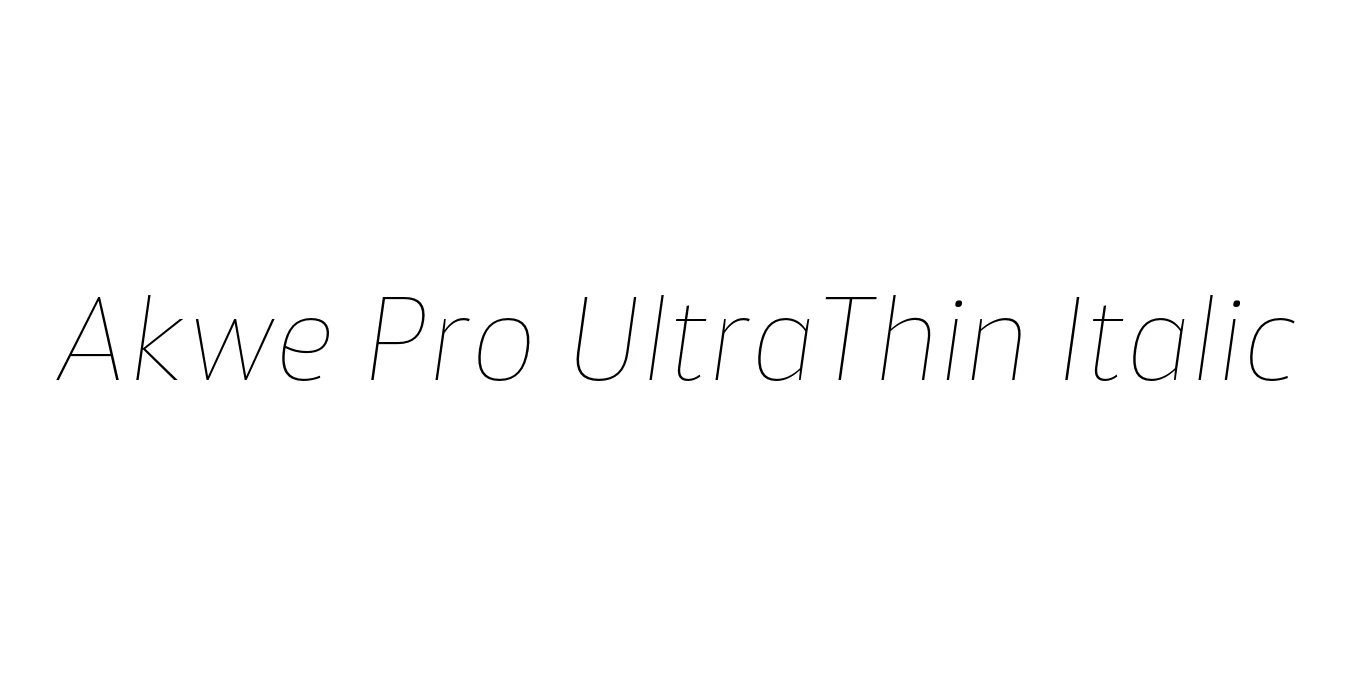
Akwe Pro UltraThin Italic
Designed by Janusz Nowacki
Akwe Pro is a sophisticated and comprehensive sans-serif superfamily designed by Janusz Nowacki. The 'UltraThin Italic' variant represents the lightest extreme of the family, offering a delicate and ethereal aesthetic that pushes the boundaries of stroke thickness. The design is rooted in geometric principles but infused with subtle humanist touches that ensure it retains a sense of warmth despite its clinical precision.
The Akwe Pro UltraThin Italic is particularly effective in large-scale applications where its fine lines can be appreciated without losing legibility. Its slanted posture adds a sense of forward momentum and elegance, making it a favorite for high-end fashion editorials, architectural documentation, and minimalist branding. It serves as a testament to modern type design's ability to balance extreme lightness with structural integrity.
Akwe Pro UltraThin Italic Best Uses
Perfect for luxury magazine headlines and high-fashion layouts where elegance is paramount.
Ideal for premium lifestyle brands and minimalist corporate identities seeking a refined look.
Excellent for hero sections and title sequences on modern, clean websites.
Effective for large-scale architectural lettering and museum installations.